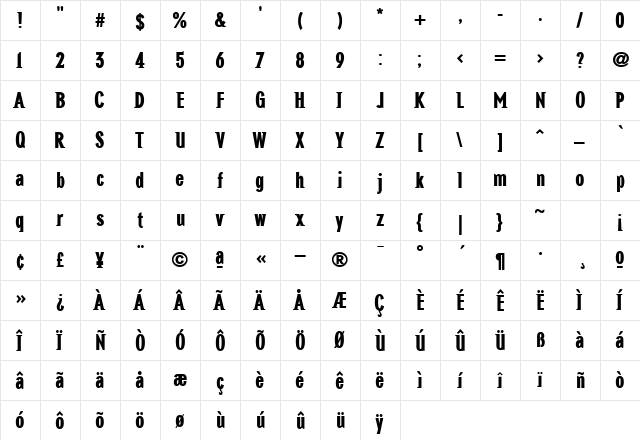
NewGlobalHeavy Regular
Design Context for NewGlobalHeavy Typeface
NewGlobalHeavy takes a measured approach to typography — its balanced proportions and neutral character make it a reliable workhorse for both digital and print work.